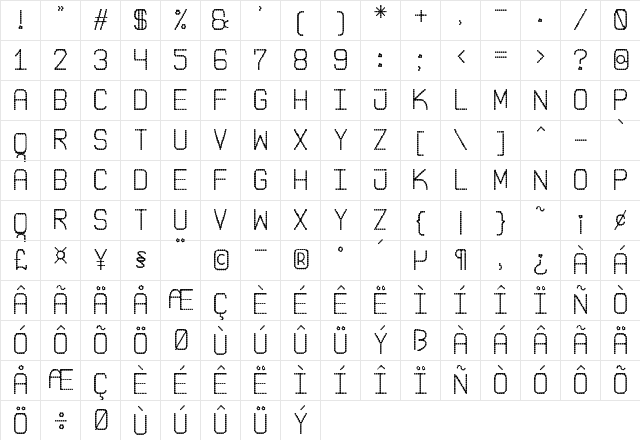
Pointed Laid St Regular
Design Context for Pointed Laid St Typeface
Pointed Laid St takes a measured approach to typography — its balanced proportions and neutral character make it a reliable workhorse for both digital and print work.